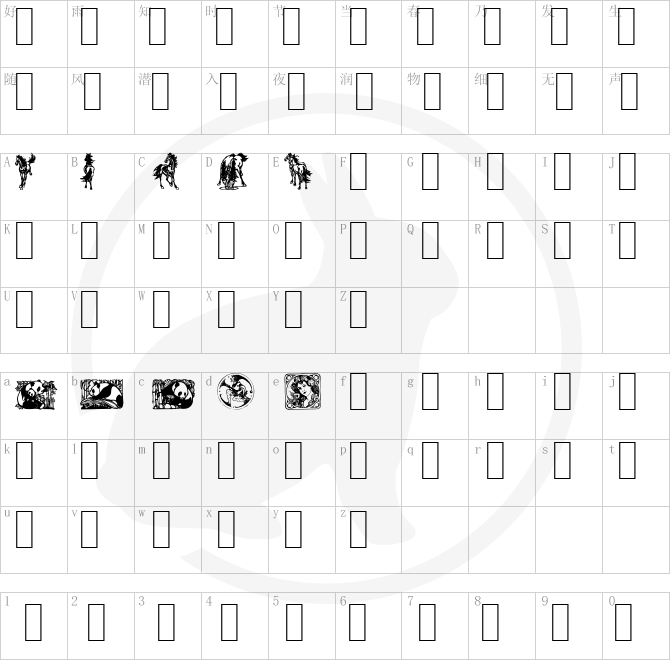
- Font Name:Fabeldyr 3
Fabeldyr-3.ttf is a very beautiful artistic font, Fabeldyr-3.ttf is widely used in the design and printing of various books and pictures,Fabeldyr-3.ttf has a strong visual impact,Fabeldyr-3.ttf is a commonly used font in newspapers, magazines and books, and is used in posters, e-commerce Poster design, store design, logo design, font design and other fields.Fabeldyr-3.